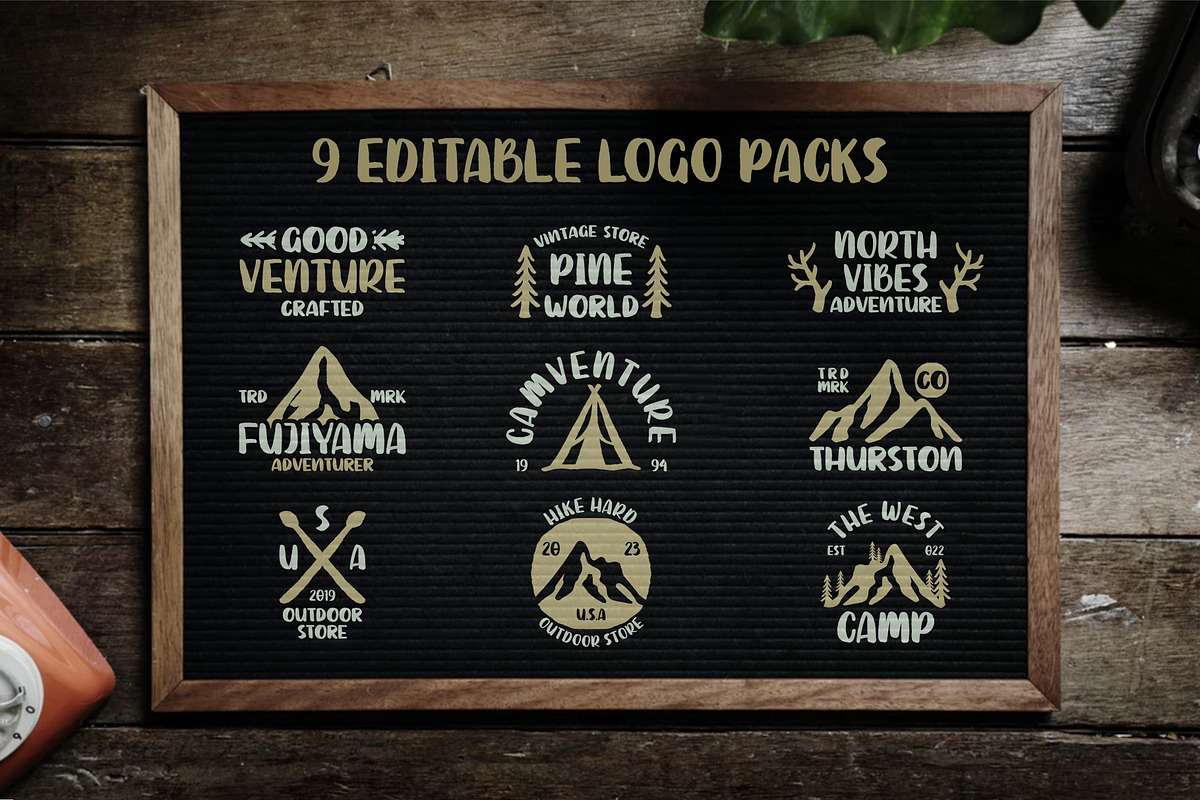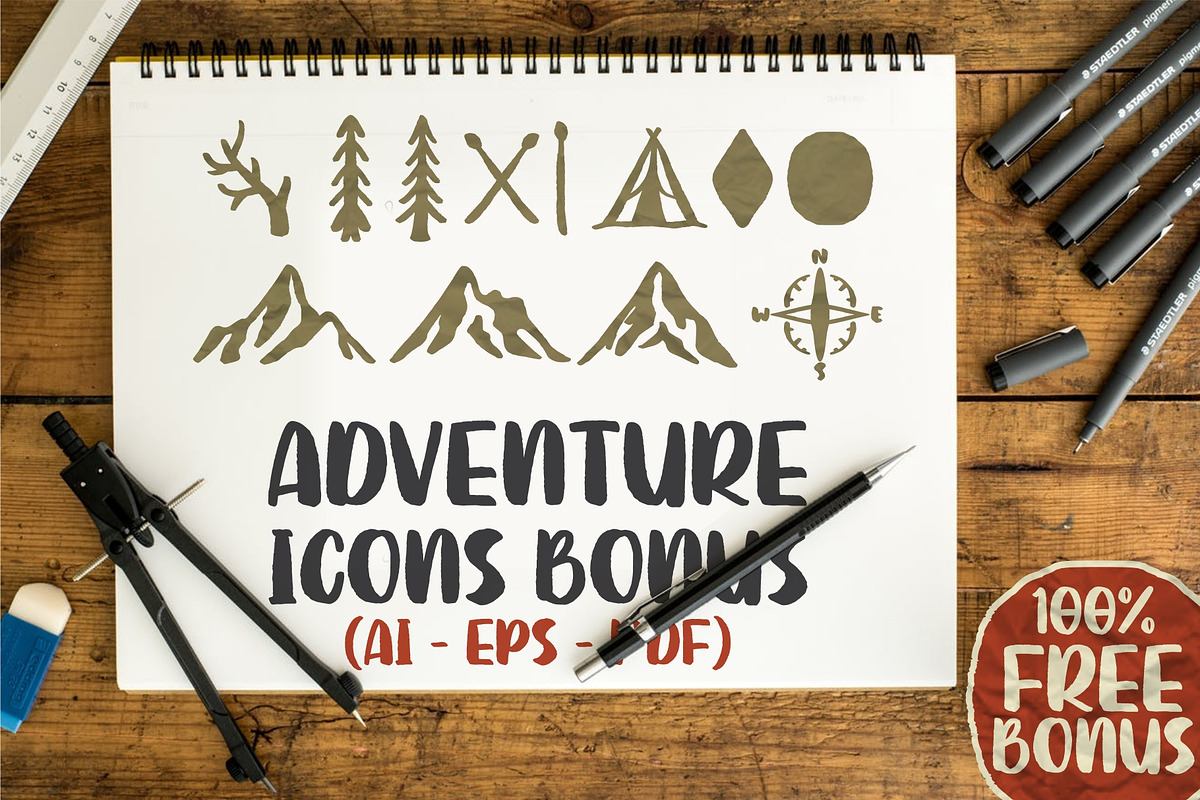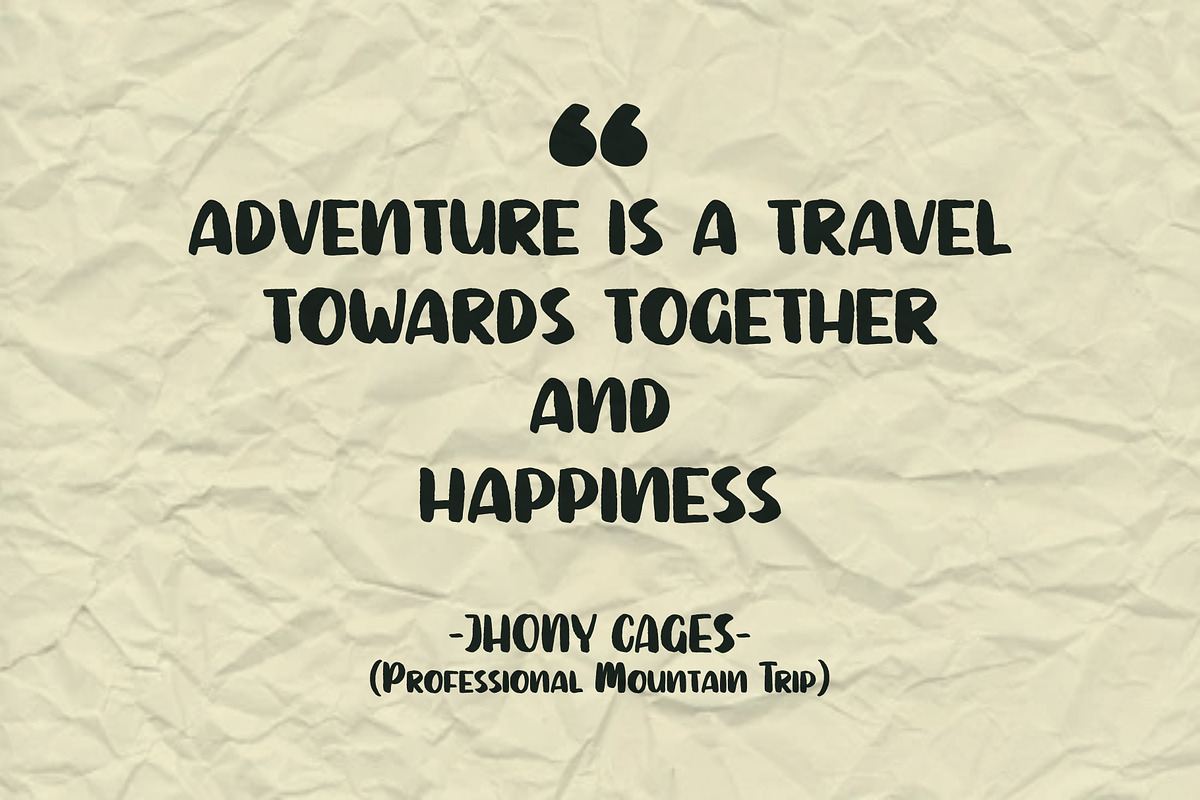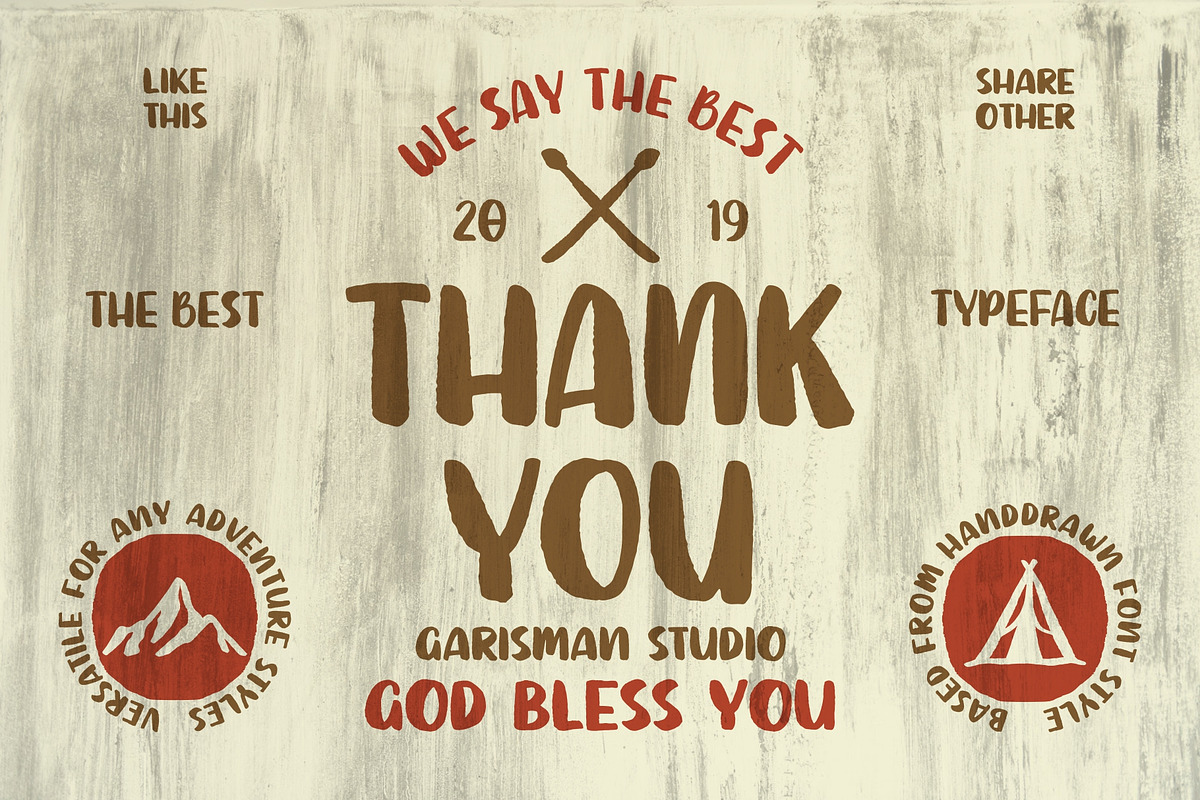
SUTTER CAMP
Welcome to SUTTER CAMP
Starting from a light streak with a special brush in an atmosphere of adventure and the natural world was born SUTTER CAMP. With a touch of rough brush and thick lines, SUTTER CAMP is here to meet font users. Especially you who like adventure style and handdrawn. Very suitable!
Comes with a rough line, adventure icons (in vector form), and also with a bonus editable logo. Very ready for your best job.
SUTTER CAMP is also very good for use in branding, logo, packaging, quote, handlettering, t-shirt design, banners, posters and many other great jobs. Make it interesting using SUTTER CAMP.
Other features of SUTTER CAMP:
- FREE vector illustration and logo ready to edit
Let's make a great work with SUTTER CAMP